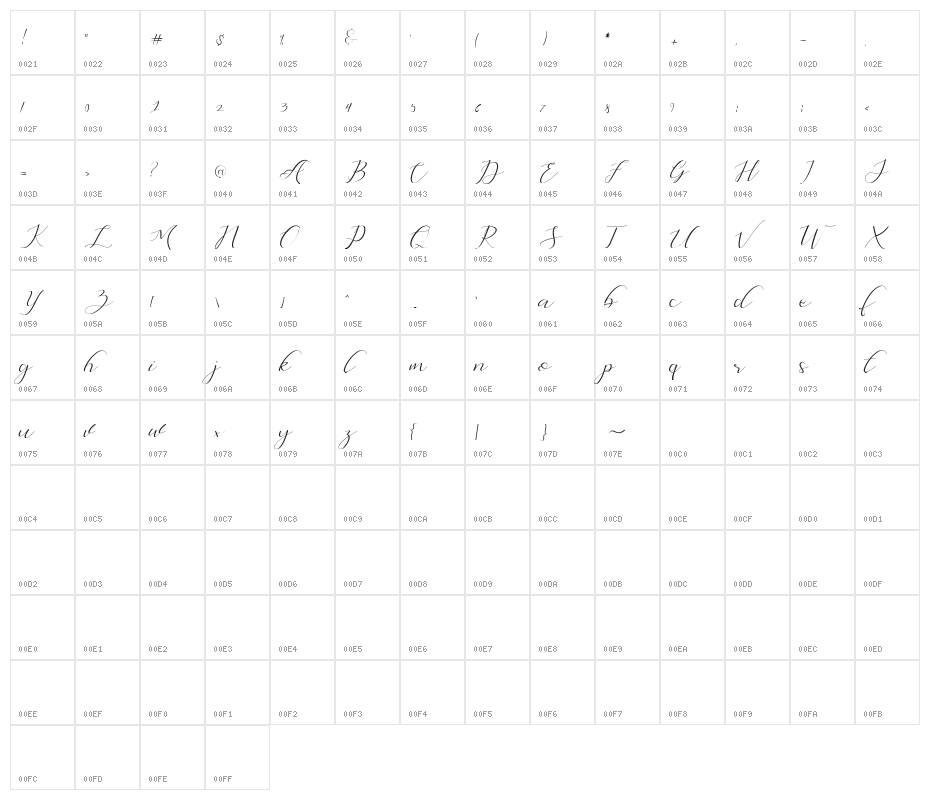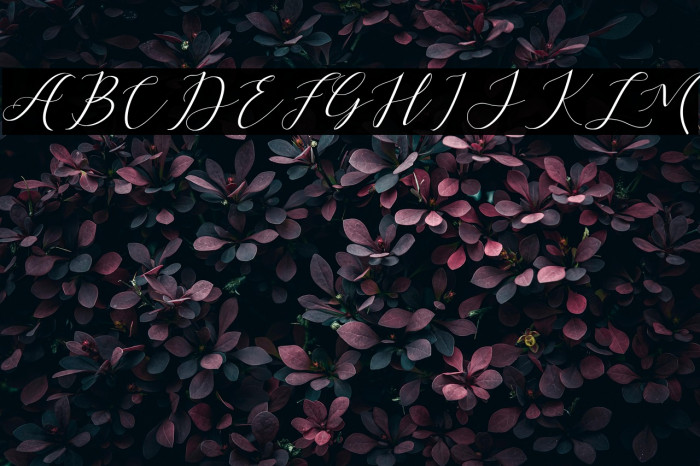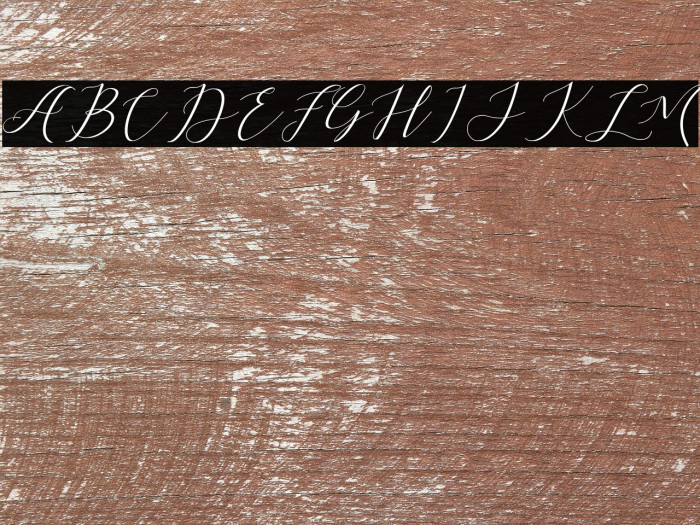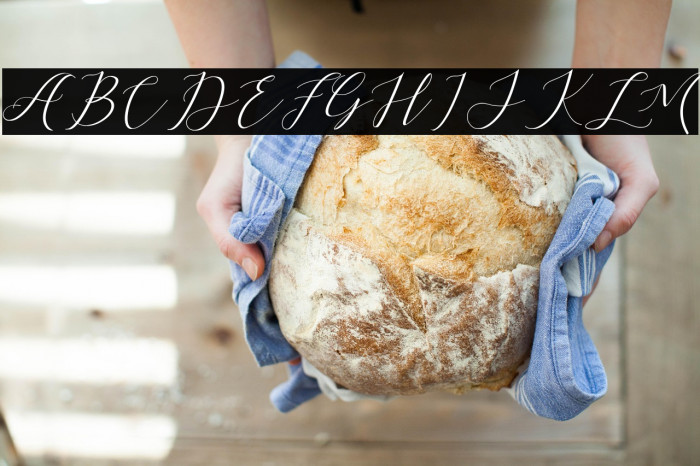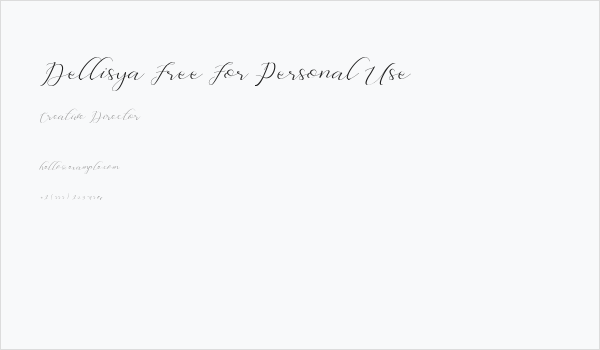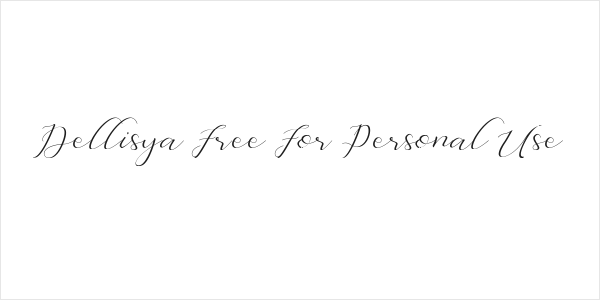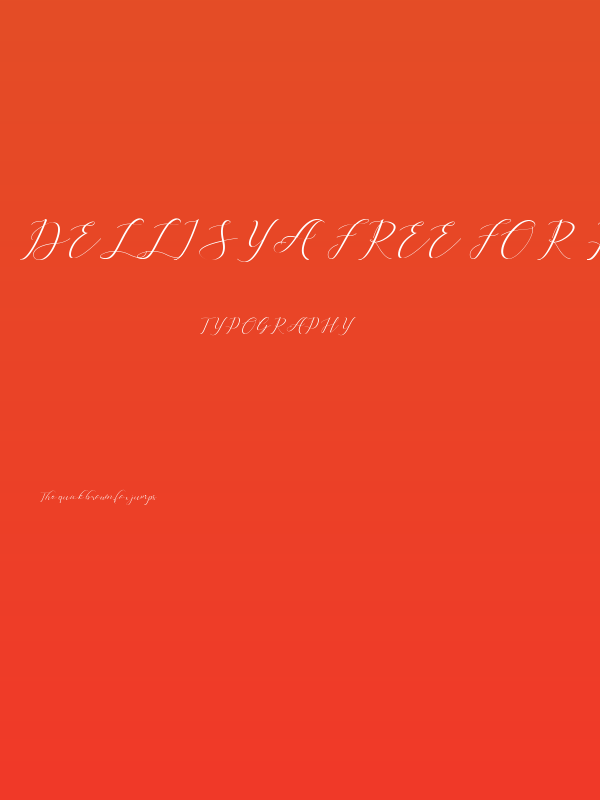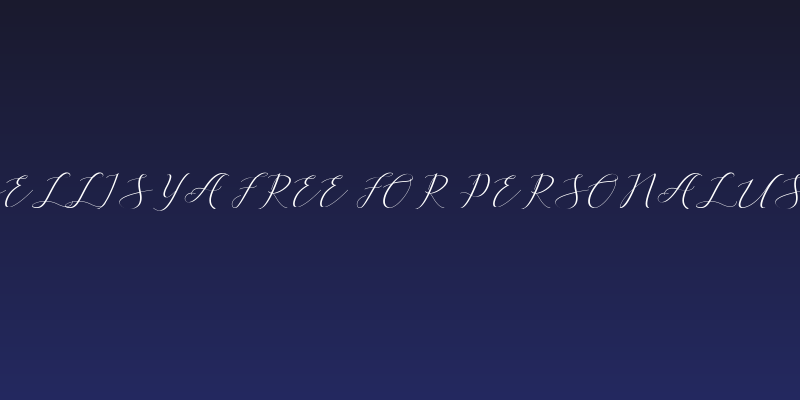
Dellisya Free For Personal Use Font
Dellisya Free For Personal Use Description
This elegant script font features flowing, cursive letters with a sophisticated and graceful appearance. The uppercase letters are ornate, with sweeping curves and flourishes that add a touch of luxury and refinement. The lowercase letters are equally stylish, maintaining a consistent flow that enhances readability while preserving the font's decorative nature. The numerals and special characters are designed to complement the overall style, with a delicate balance between formality and flair. This font is perfect for projects that require a touch of elegance and sophistication.